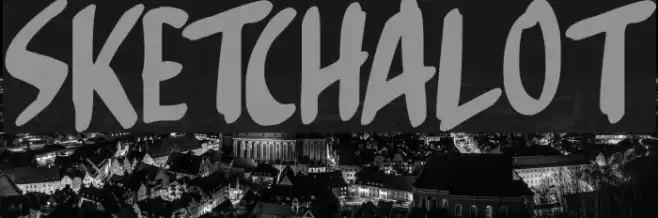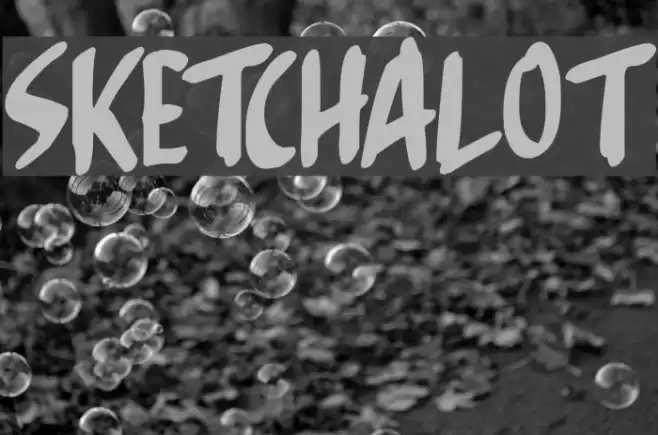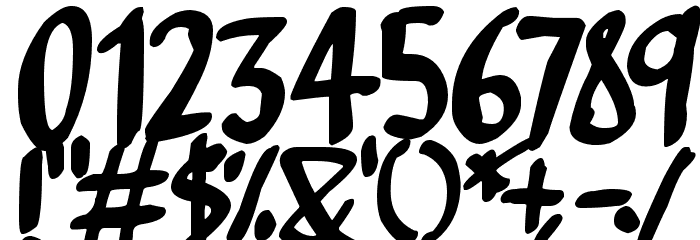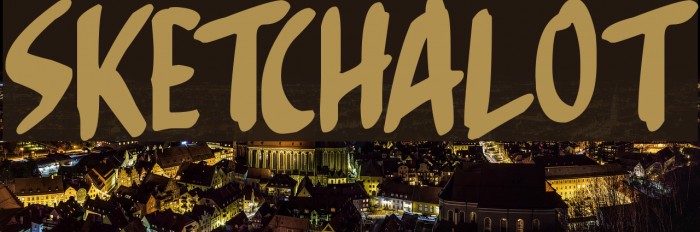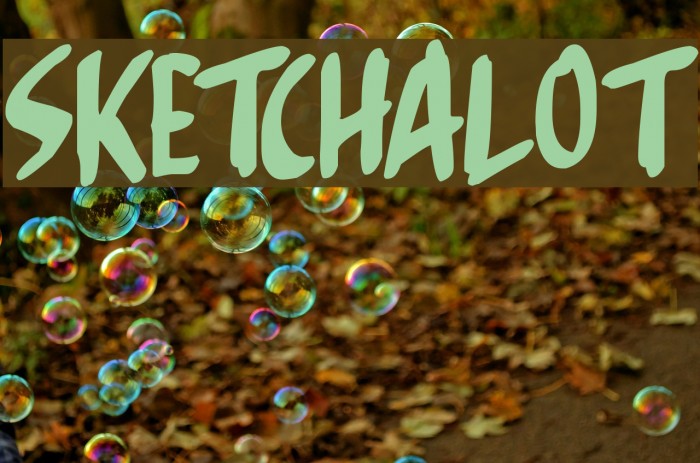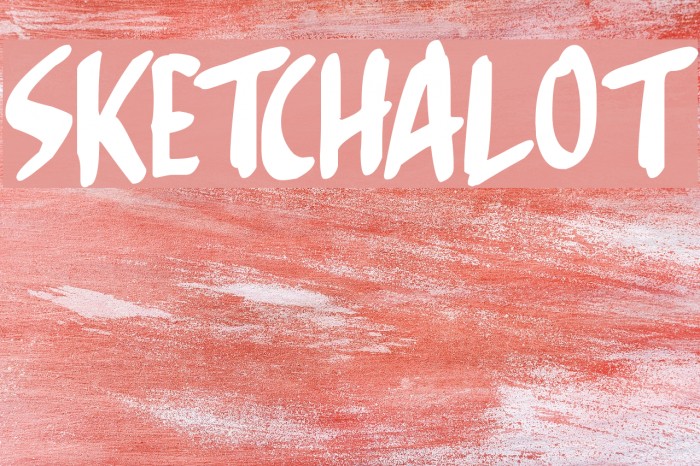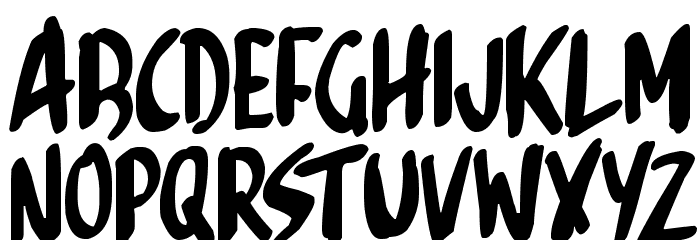
Sketchalot Font
Sketchalot Description
This font features a bold, hand-drawn style with a playful and energetic appearance. The letters are thick and slightly irregular, giving it a casual and informal feel. The strokes are consistent in weight, with rounded edges that add to its approachable and friendly character. The uppercase and lowercase letters maintain a cohesive look, while the numbers and special characters integrate seamlessly into the overall design. This font is ideal for projects that require a personal touch, such as invitations, posters, and branding materials.
A bold, hand-drawn font with a playful and energetic style from Handwritten fonts.
- Proposed Projects: Ideal for invitations, posters, branding materials, and any project needing a personal touch.